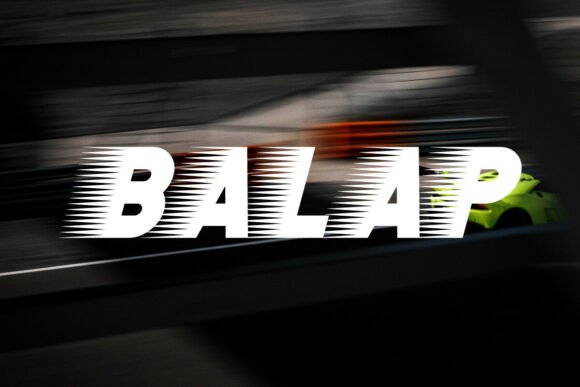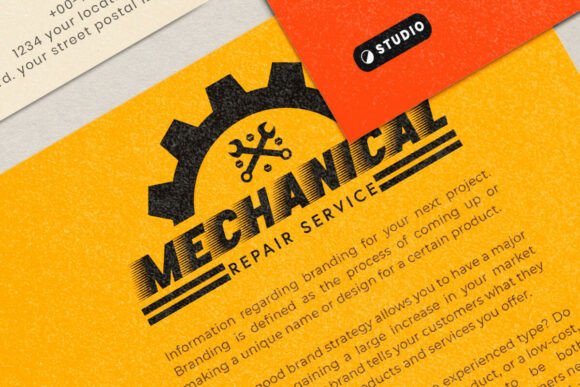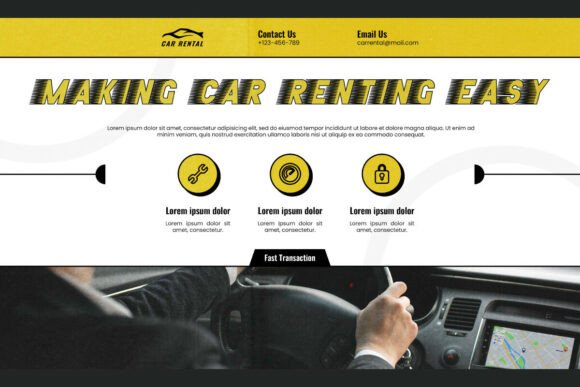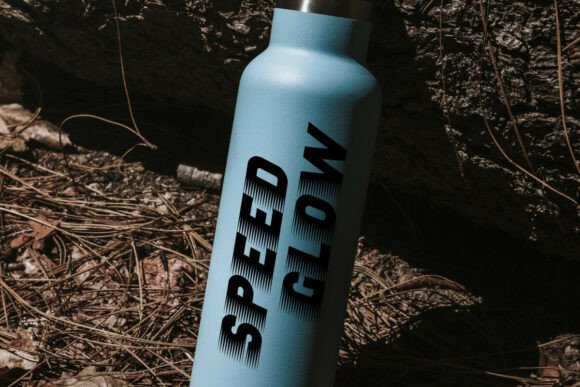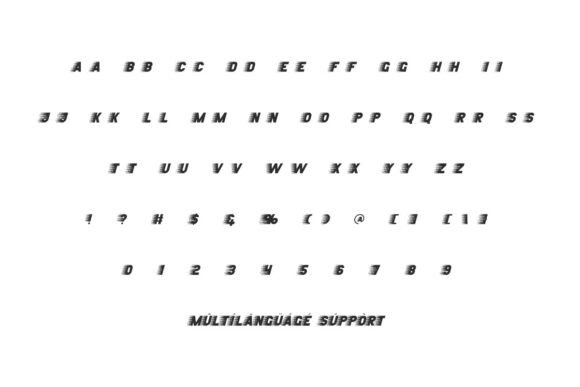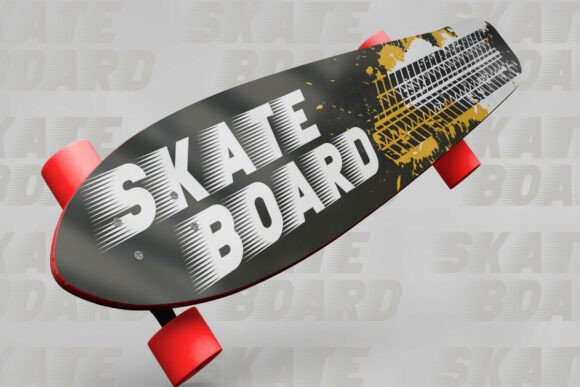
Unleash the Power of Speed: Introducing the Balap Font
Are you looking for a typeface that can inject a burst of velocity and adrenaline into your designs? Look no further than the Balap font, a powerful decorative display typeface engineered for maximum impact and a feeling of rapid motion. This dynamic font is perfect for designers and crafters who want to add a thrilling, competitive edge to their work.
The Design Behind the Speed
The Balap typeface features sharp, tapering horizontal strokes that simulate the visual effect of speed lines, giving it a unique and dynamic appearance. The bold, all-caps structure ensures high visibility, making it perfect for designs where energy and quickness are paramount. The font’s distinctive style is reminiscent of speed and motion, evoking the feeling of racing, technology, and urgent action.
Unique Features for Maximum Impact
One of the standout features of the Balap font is its unique speed-effect glyphs. These special characters instantly communicate themes of racing, technology, and urgent action, making it easy to add a touch of high-octane excitement to your designs. Whether you’re working on a logo, event poster, merchandise, or automotive branding, the Balap font is sure to make a lasting impression.
The Balap font is a must-have for designers and crafters who want to add a jolt of energy and movement to their work. Its bold, eye-catching style makes it perfect for a wide range of applications, from sports and racing to technology and entertainment. With the Balap font, you can create designs that are fast-paced, dynamic, and attention-grabbing.
Applications for the Balap Font
The Balap font is versatile and can be used in a variety of contexts, including:
- Logos: Add a touch of speed and energy to your logo with the Balap font.
- Event Posters: Create eye-catching posters for racing events, concerts, and other high-energy happenings.
- Merchandise: Design t-shirts, hats, and other merchandise that showcases your brand’s personality and style.
- Automotive Branding: Use the Balap font to create bold, attention-grabbing branding for car manufacturers, racing teams, and automotive companies.
Why Choose the Balap Font?
There are many reasons why the Balap font stands out from the crowd. Here are just a few:
- Unique Style: The Balap font has a distinctive style that is unlike any other typeface.
- High Visibility: The bold, all-caps structure ensures that your text will be seen and remembered.
- Customizable: The Balap font comes with a range of glyphs and characters, allowing you to customize your designs to suit your needs.
- Easily Readable: Despite its bold style, the Balap font is easy to read, even at small sizes.
The Balap font is a powerful tool for designers and crafters who want to add a burst of speed and energy to their work. With its unique style, high visibility, and customizable features, it’s the perfect choice for a wide range of applications. Whether you’re working on a logo, event poster, merchandise, or automotive branding, the Balap font is sure to make a lasting impression. So why wait? Unleash the power of speed and download the Balap font today!